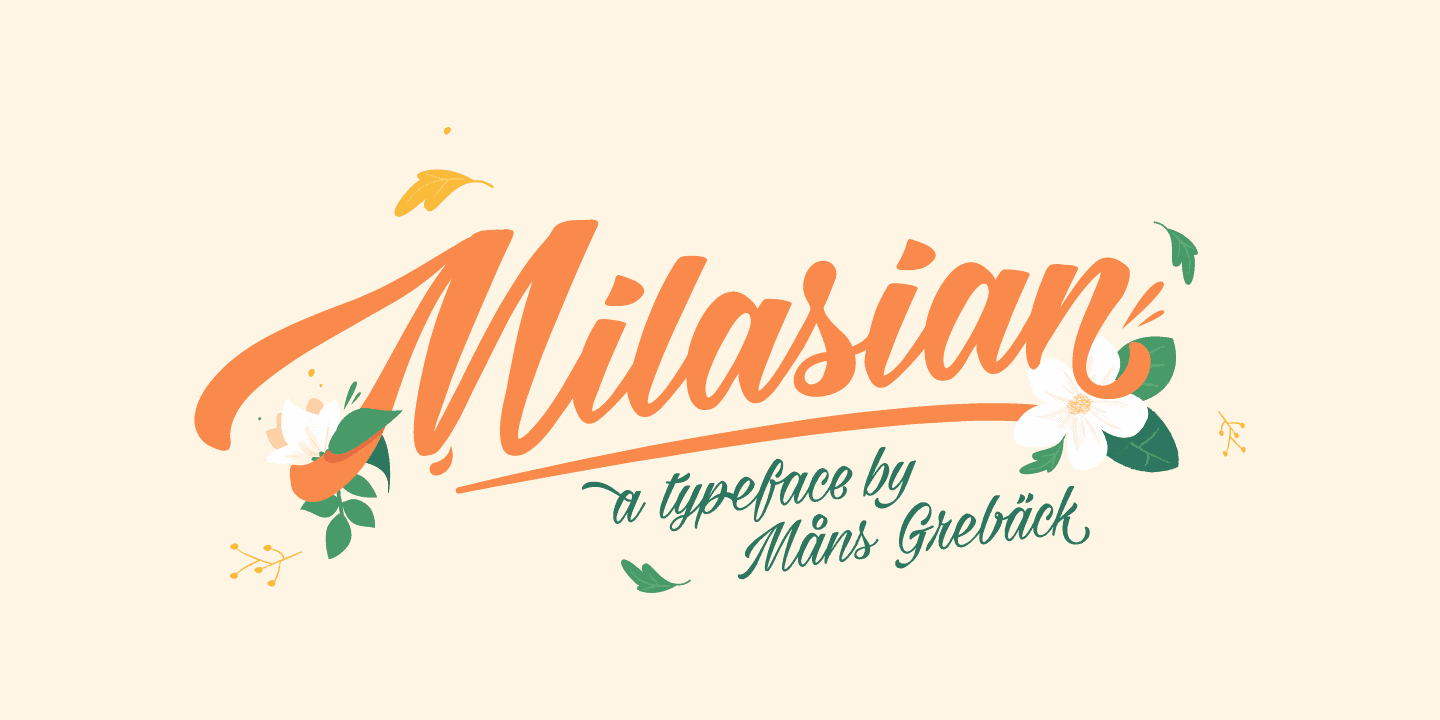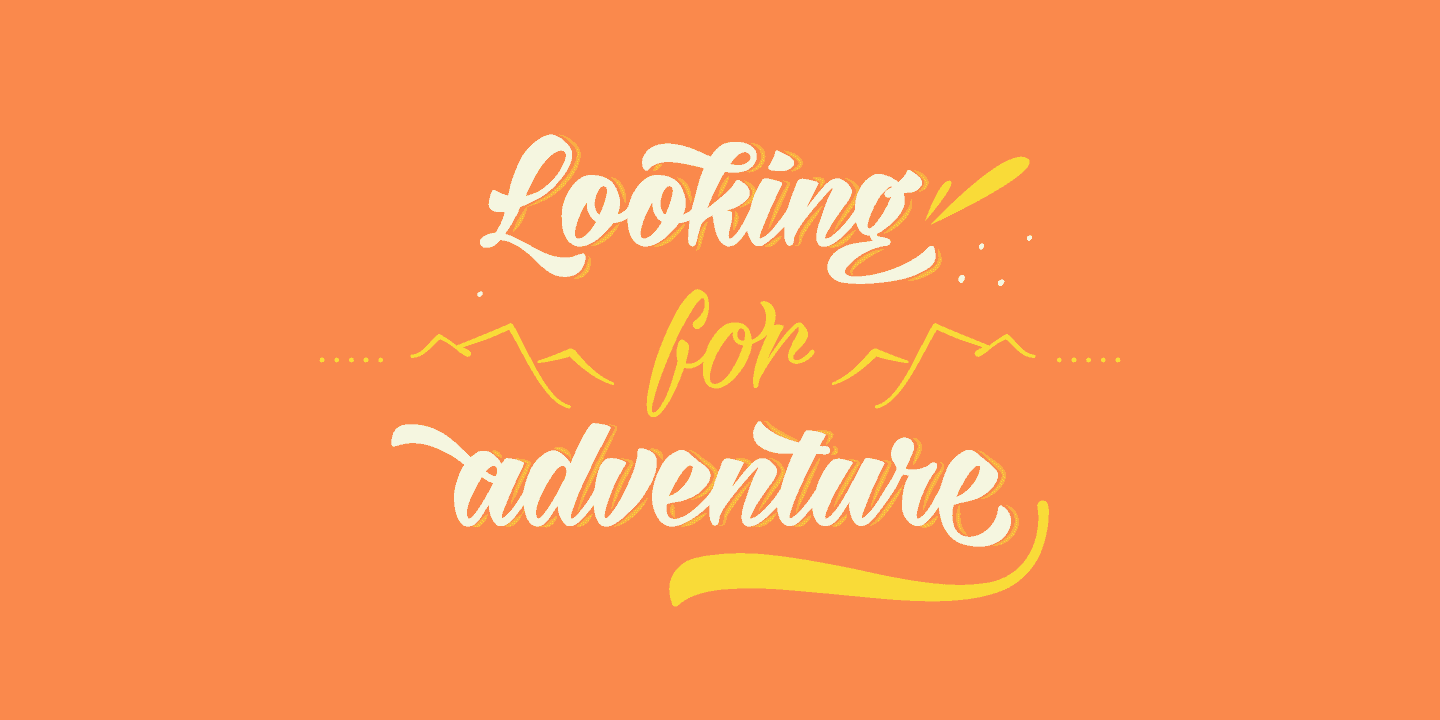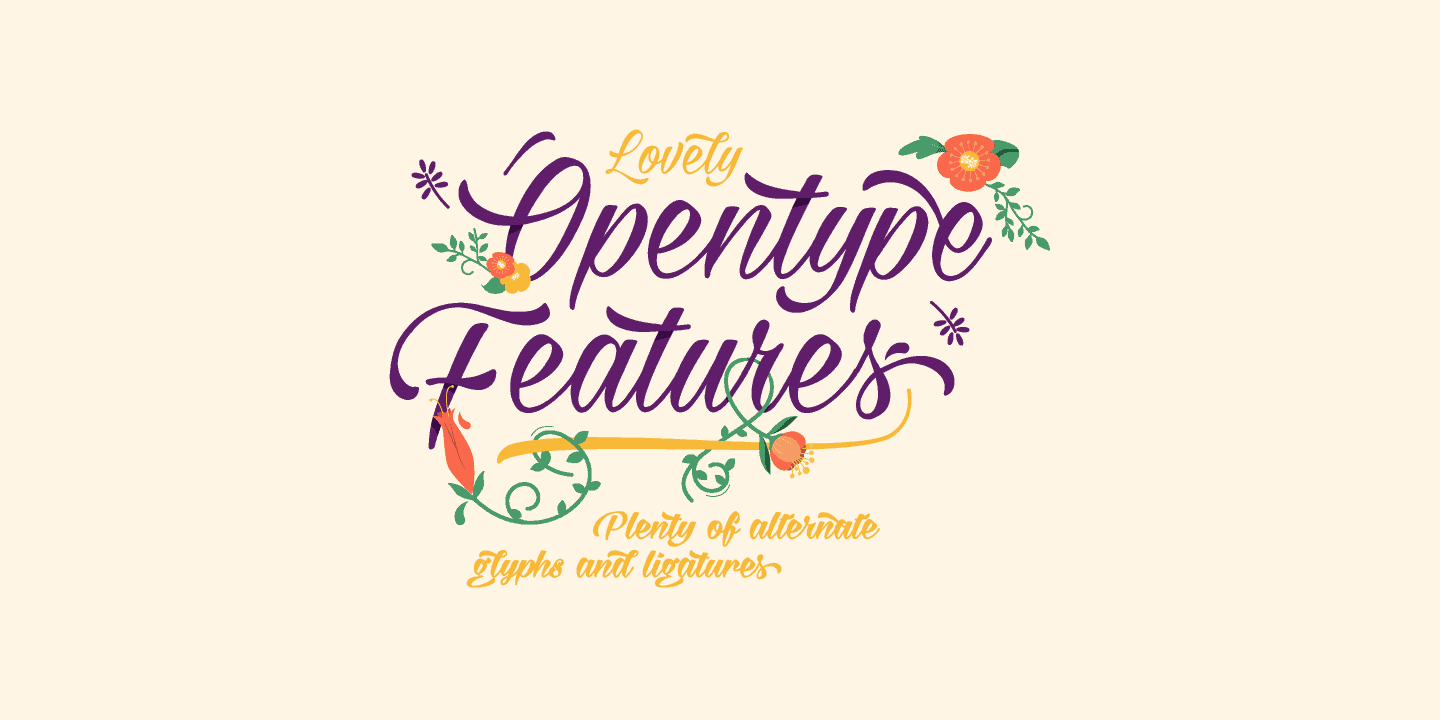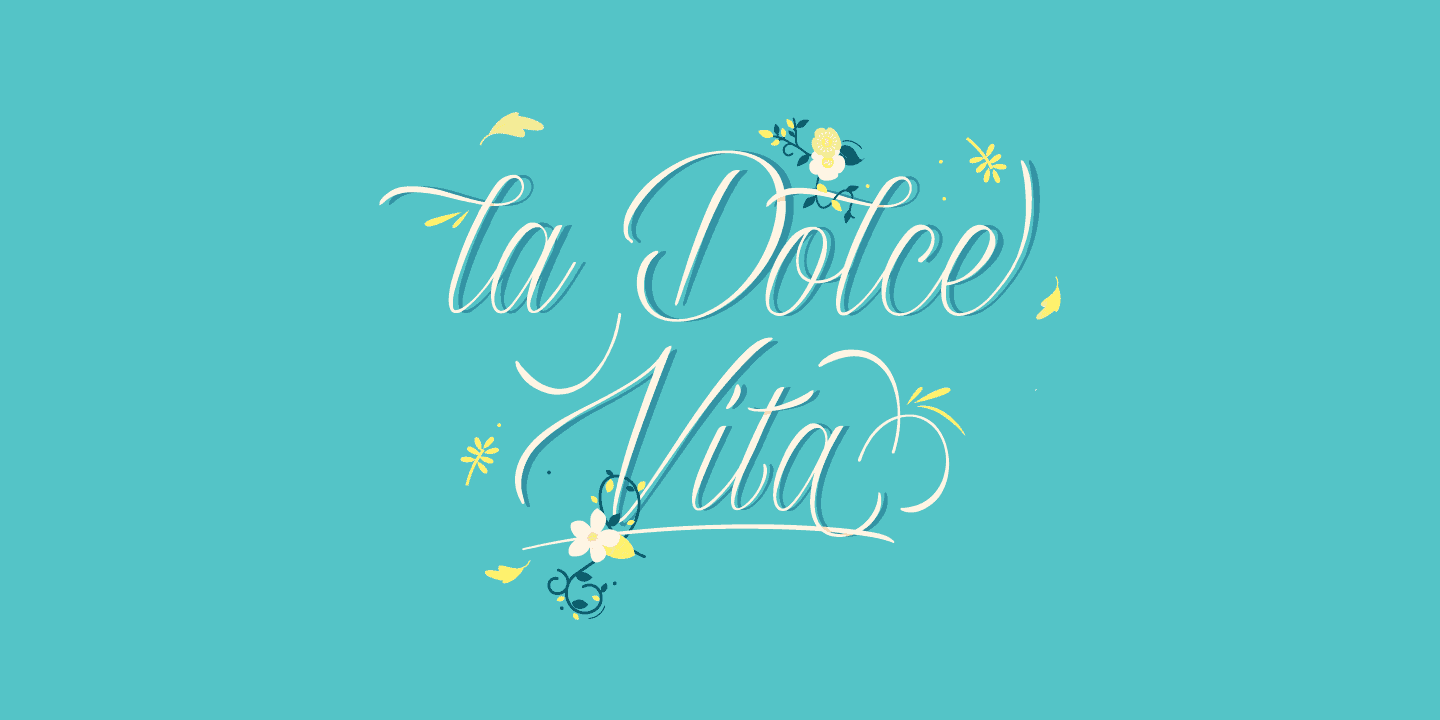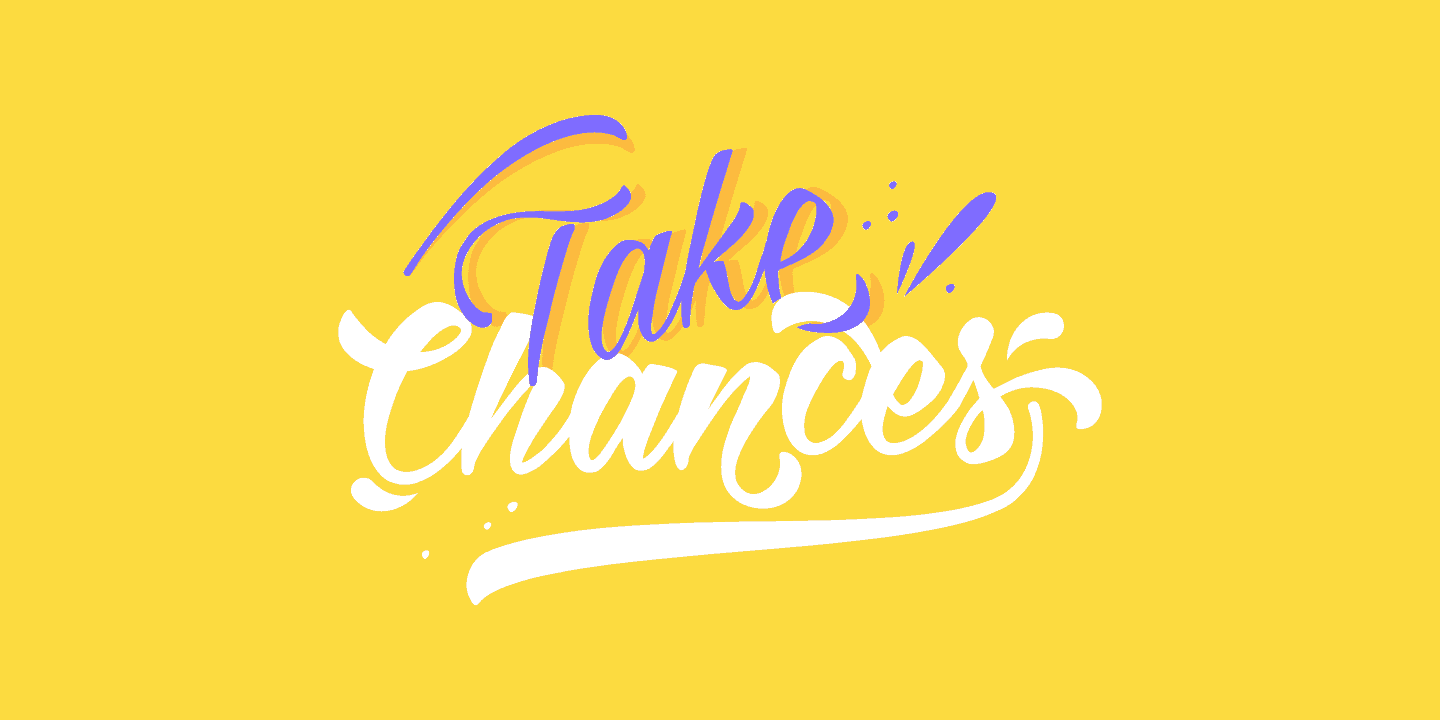
Milasian
Milasian is a flowing, casual script typeface, with a rich, inky composition, and a tad of a feminine vibe. Milasian contains a supporting, vast range of ligatures and glyphs for a practical, hand-lettered look. It comes in three versions; thin, medium and bold.